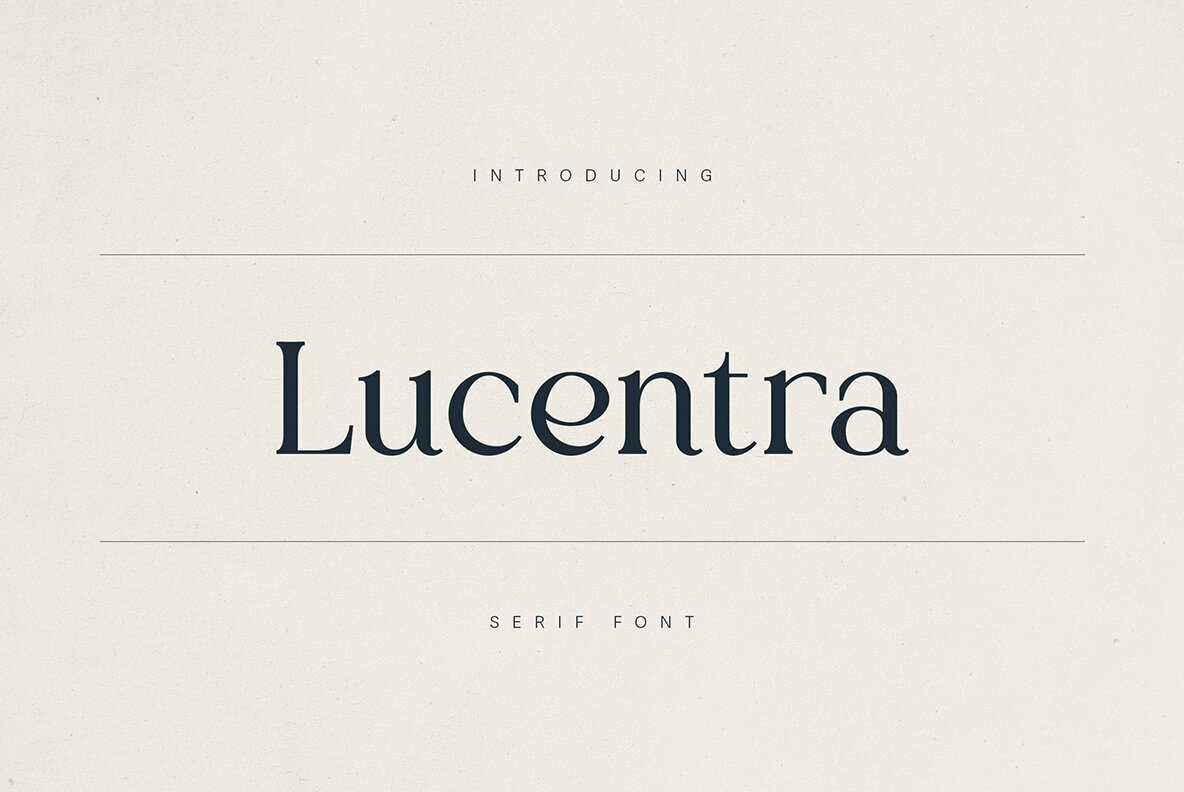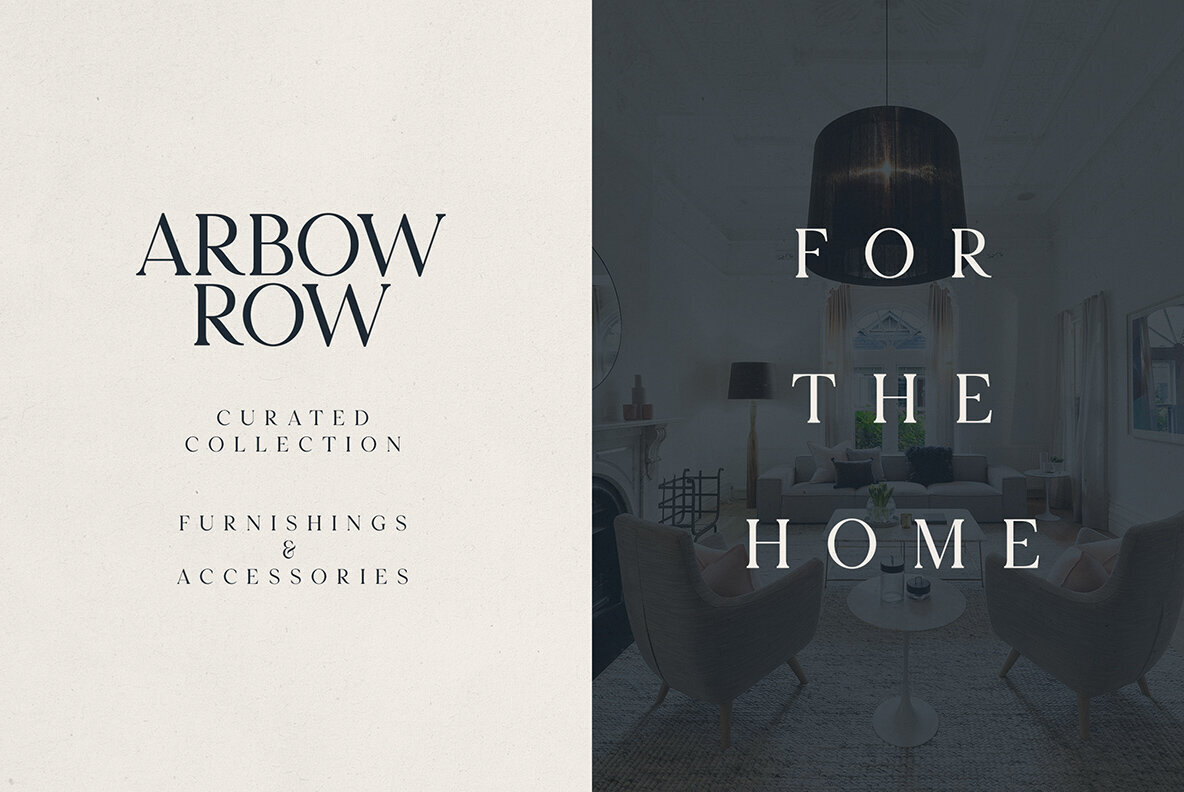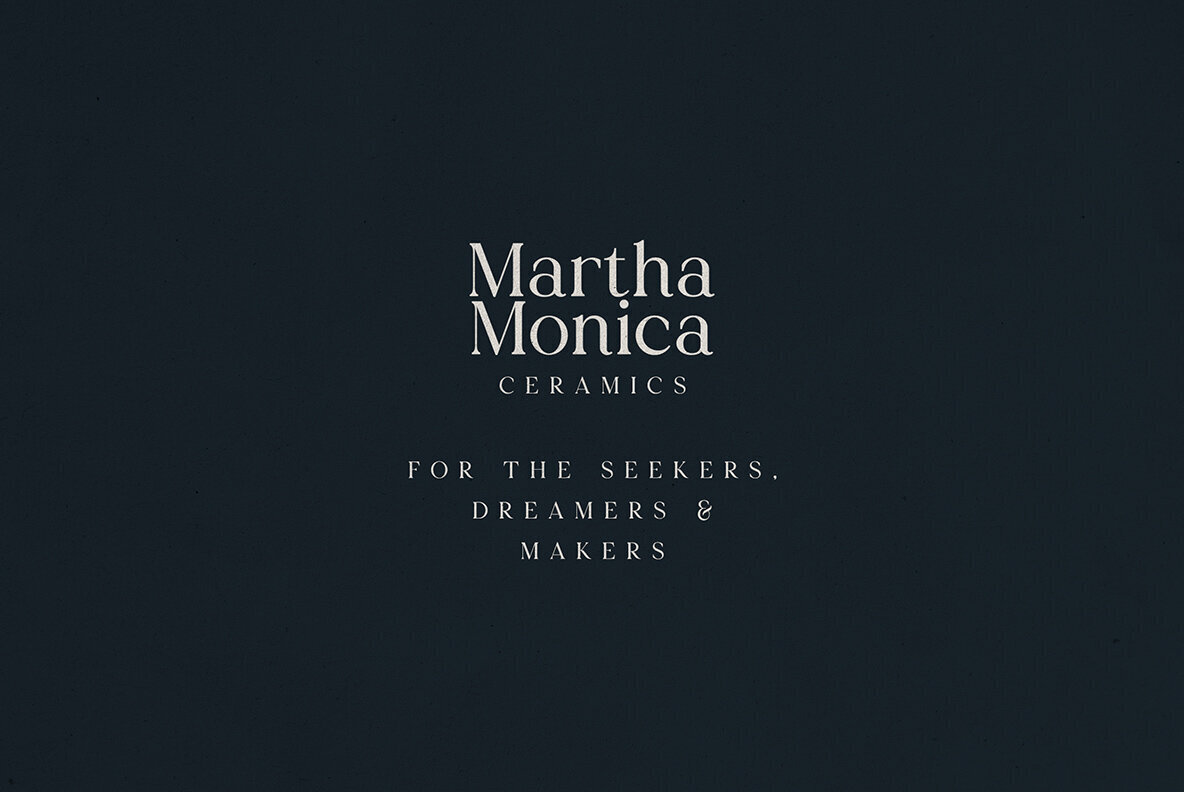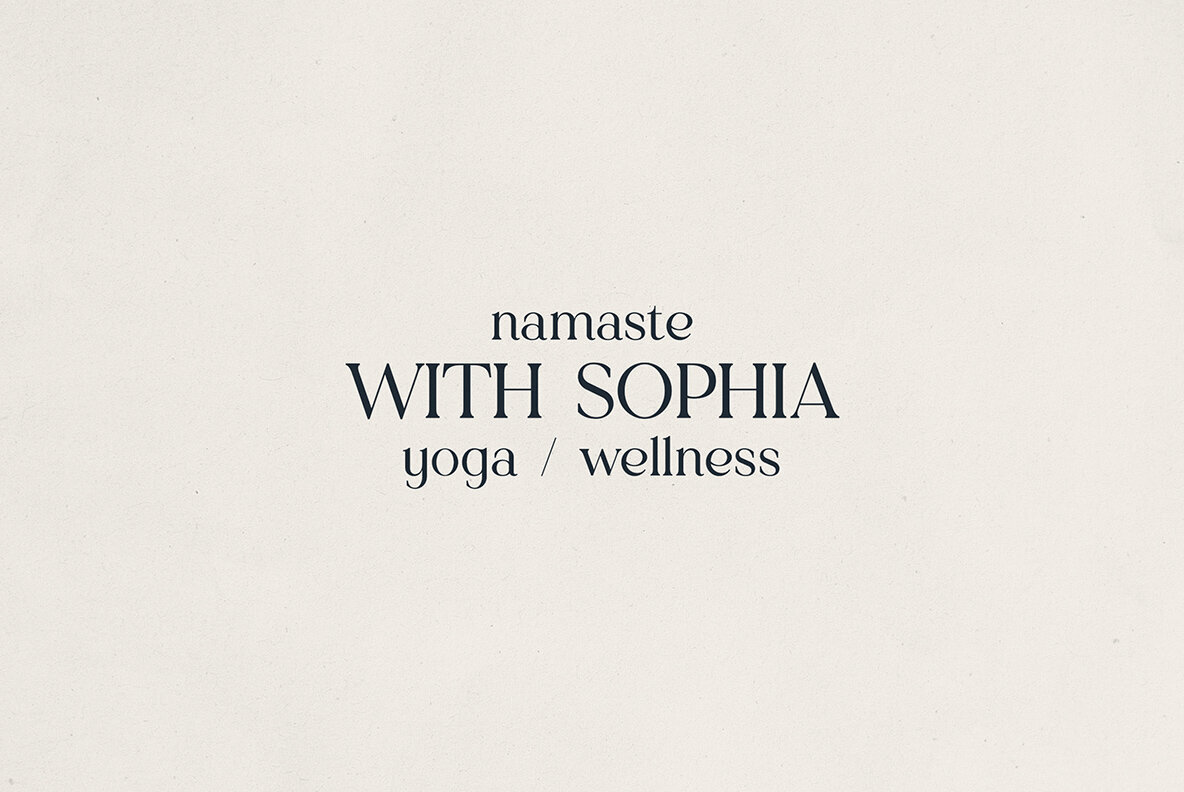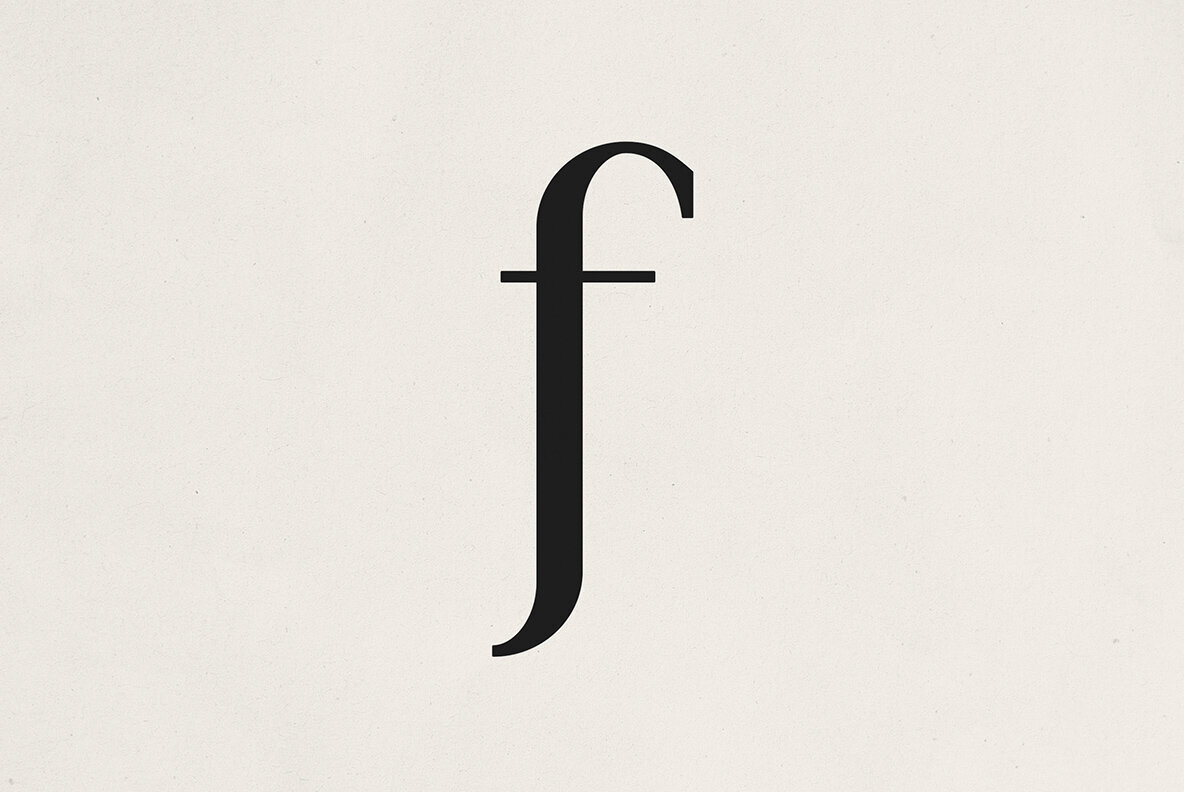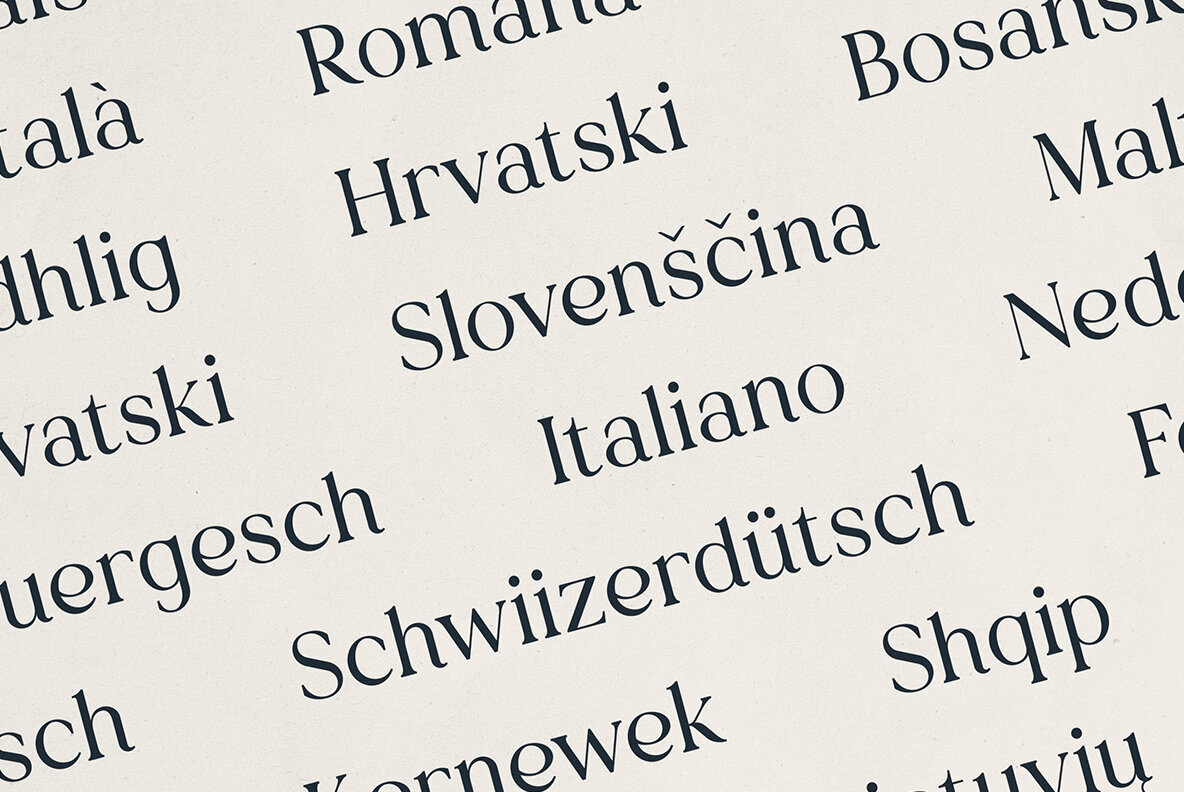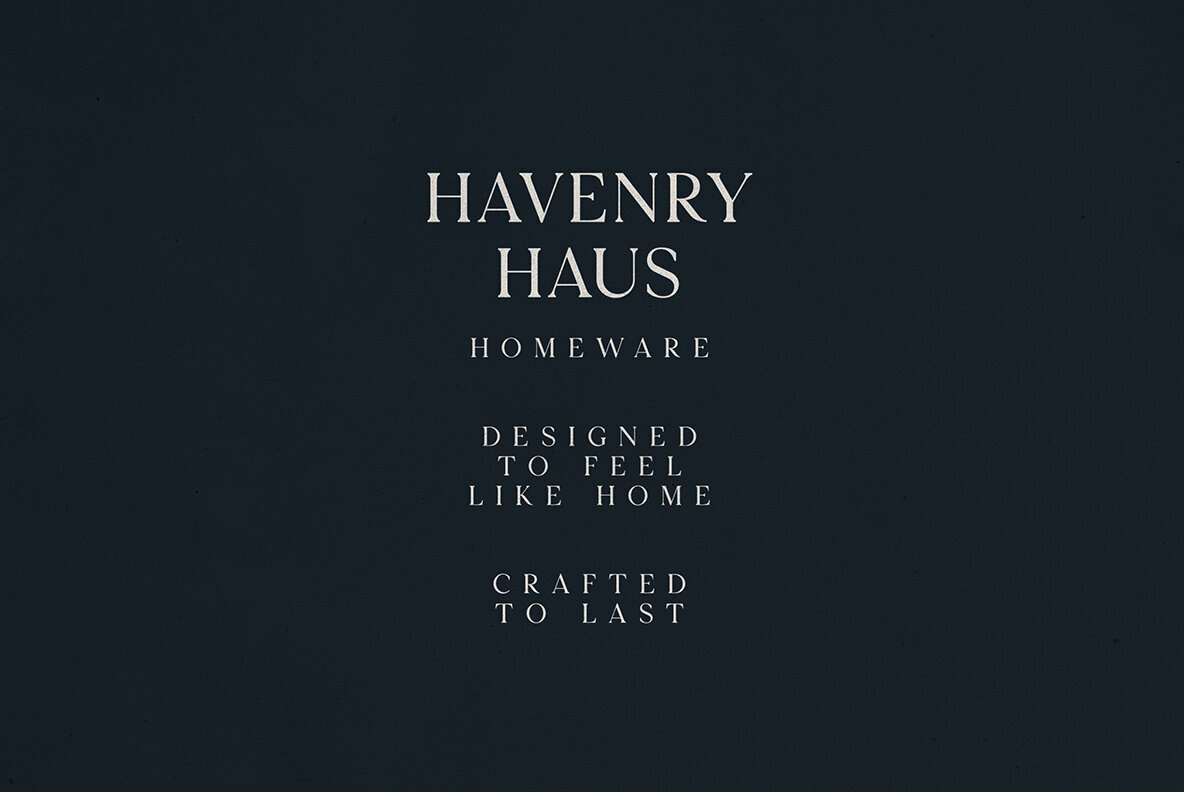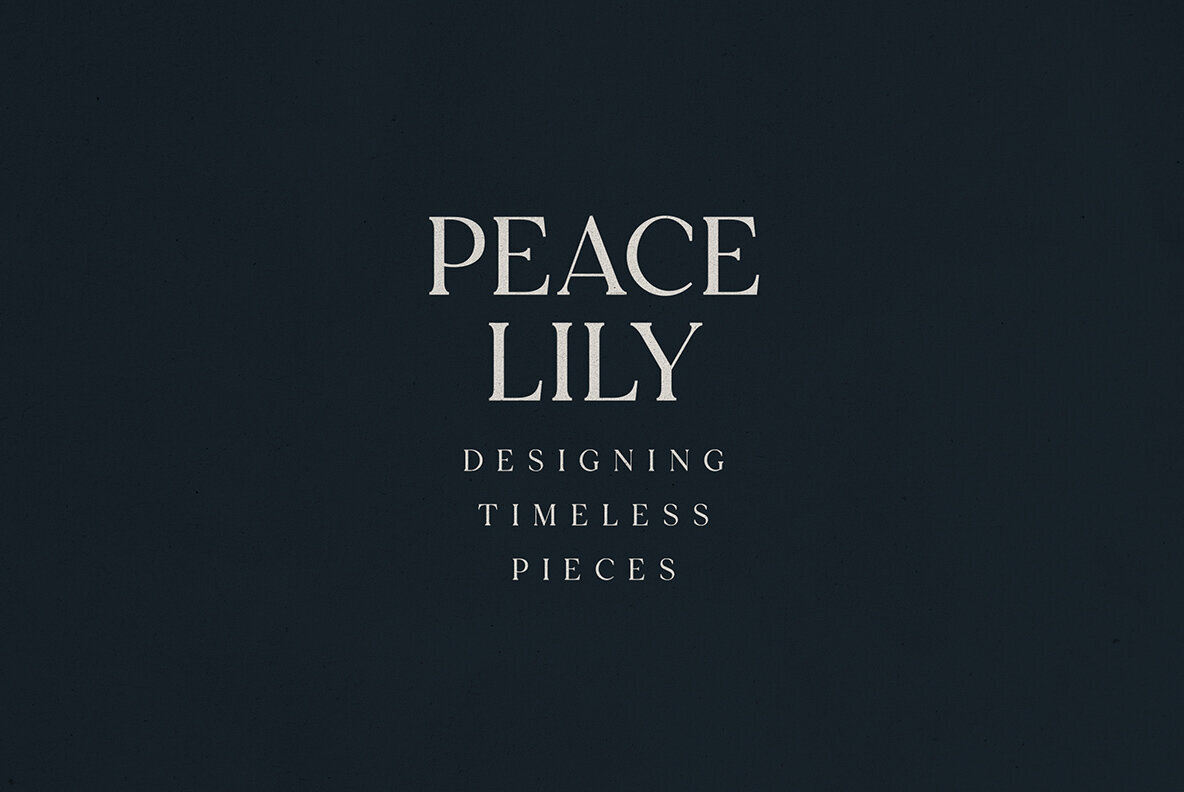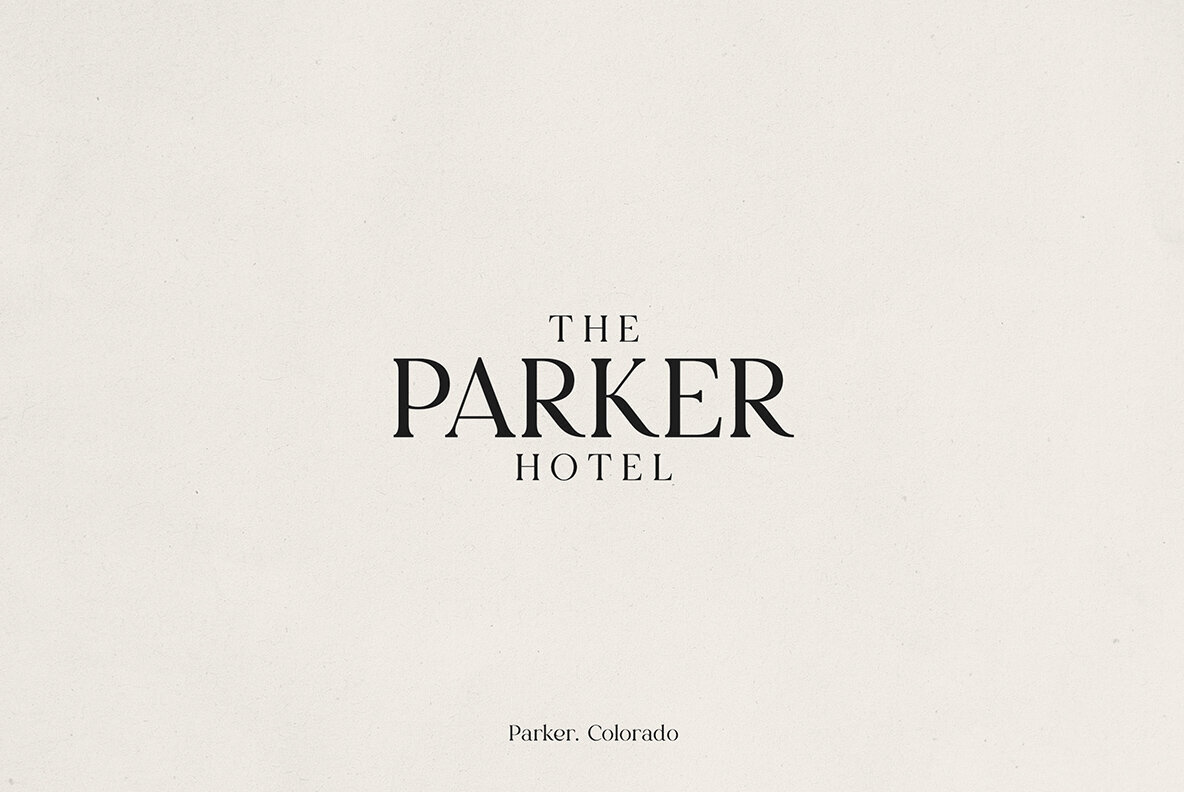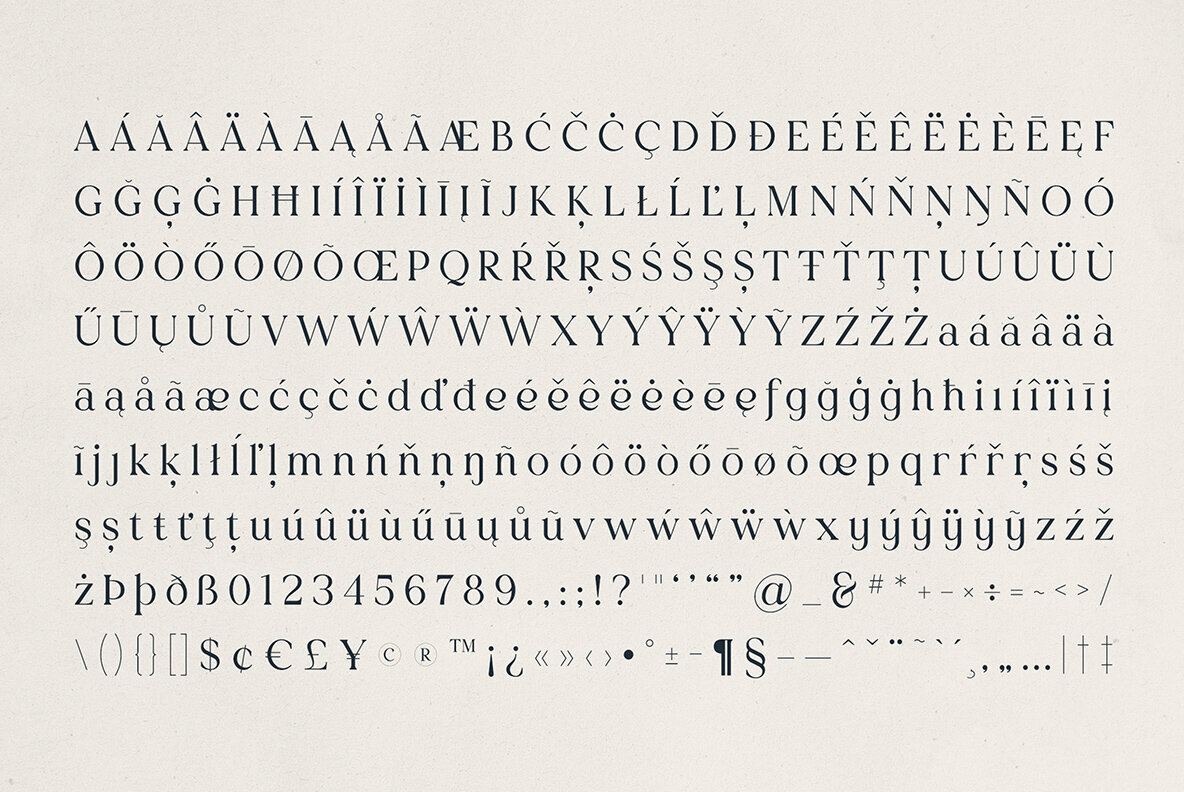
Lucentra Font
Lucentra
Experience the harmonious blend of timeless elegance and modern refinement with Lucentra, a sophisticated serif typeface designed to elevate your projects. Featuring graceful curves, high contrast strokes, and subtly flared serifs, Lucentra offers a perfect balance between classic beauty and contemporary clarity. Ideal for luxury branding, editorial layouts, hospitality identities, and lifestyle products, this typeface imparts a sense of poise and sophistication to any design endeavor. Crafted with meticulous attention to detail, Lucentra is tailored for creatives who value style and substance. Its extensive multilingual support ensures versatility across various languages and regions, making it an excellent choice for high-end product packaging and refined print layouts. With Lucentra, communicate confidence and leave a lasting impression.Lucentra: Refined Serif Elegance